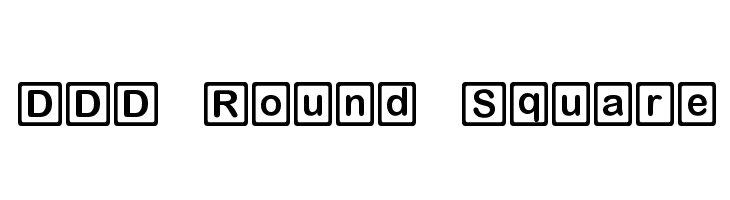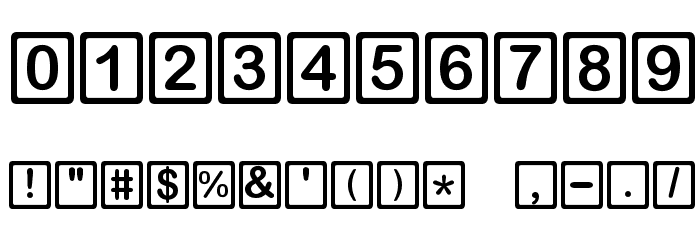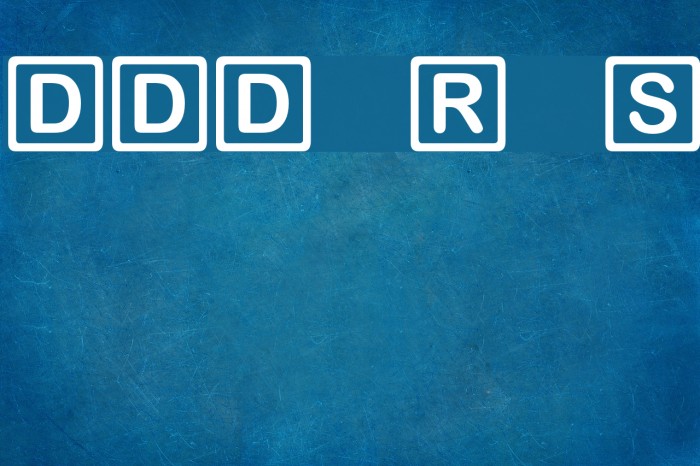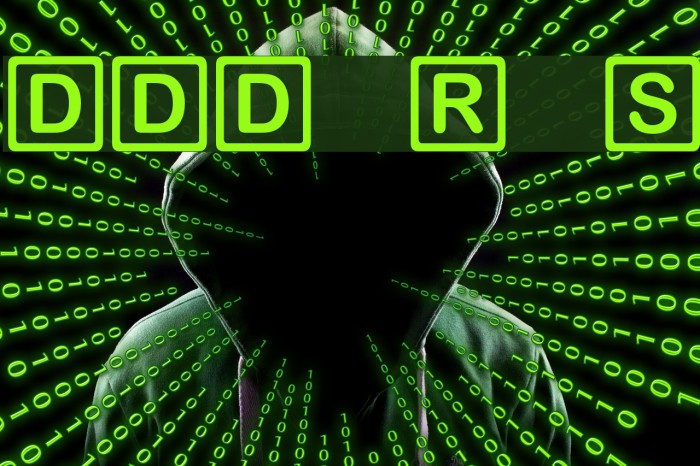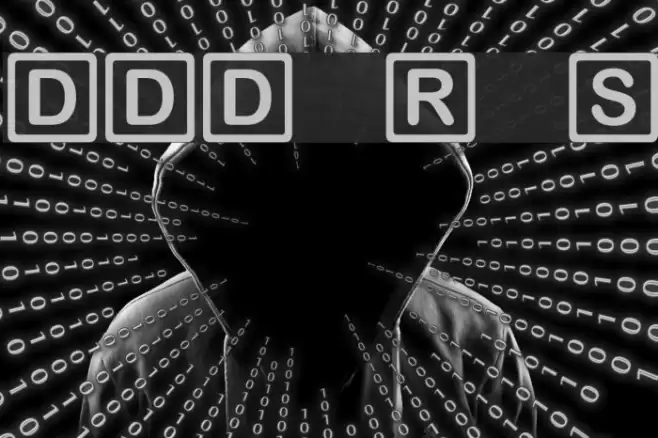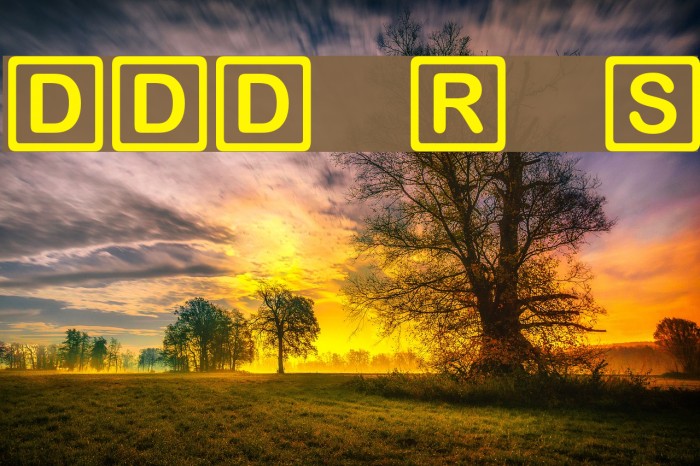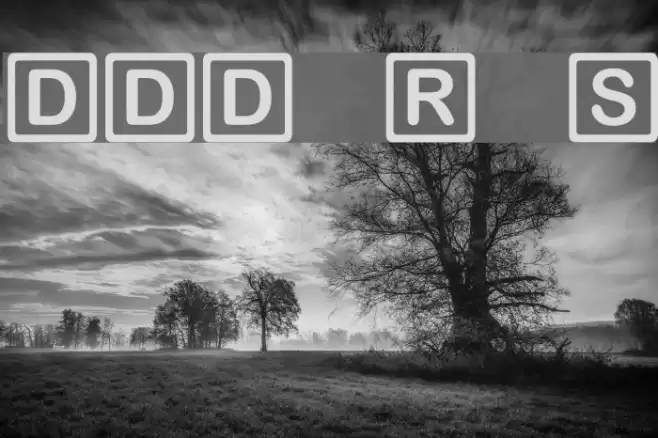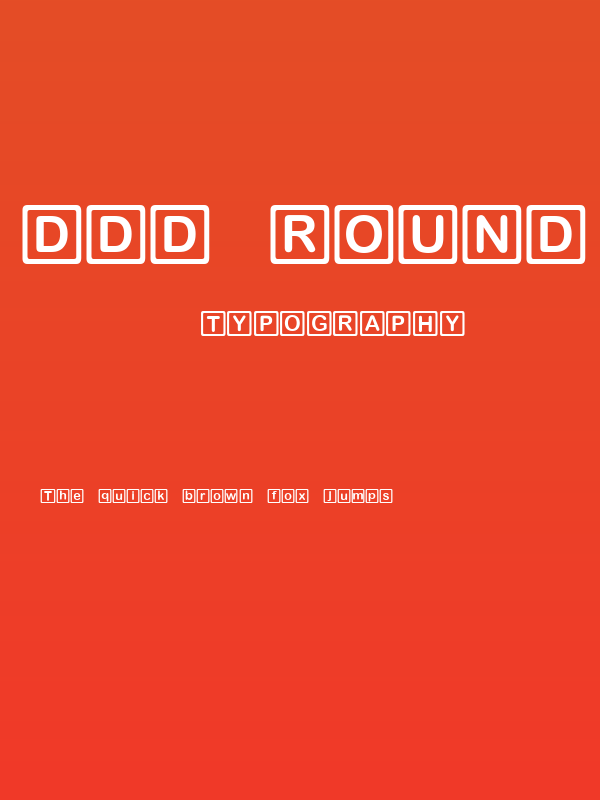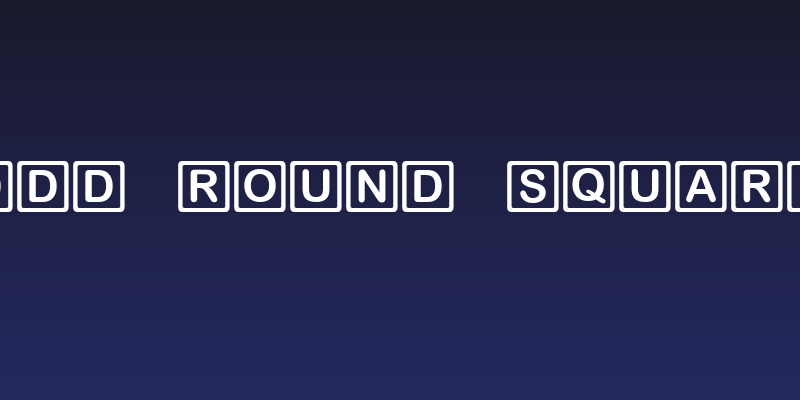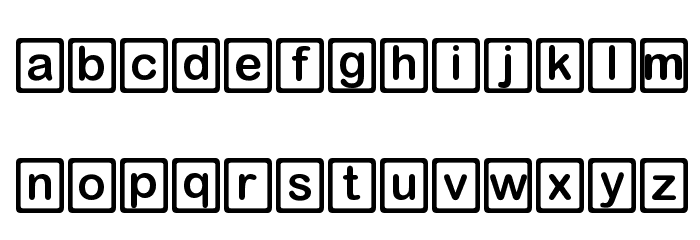
DDD Round Square Font
DDD Round Square Description
This font features a unique combination of rounded and squared elements, creating a distinctive and modern appearance. Each character is enclosed within a square outline, giving it a structured and geometric look. The letters are bold and evenly spaced, ensuring clarity and readability. The rounded corners of the characters soften the overall design, adding a touch of friendliness to the otherwise rigid structure. This font includes a full set of uppercase and lowercase letters, numerals, and a variety of special characters, making it versatile for various design needs.
| Proposed Projects | Ideal for digital interfaces, branding, posters, and signage where a modern and structured look is desired. |